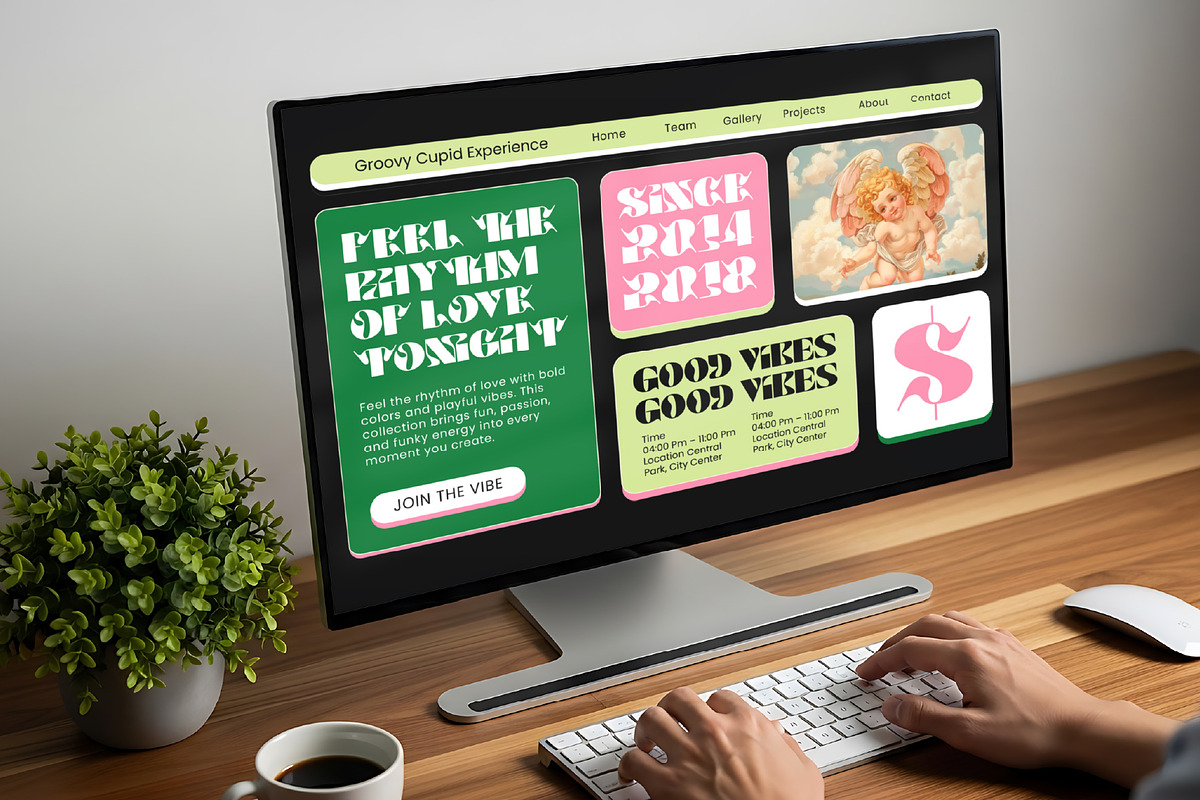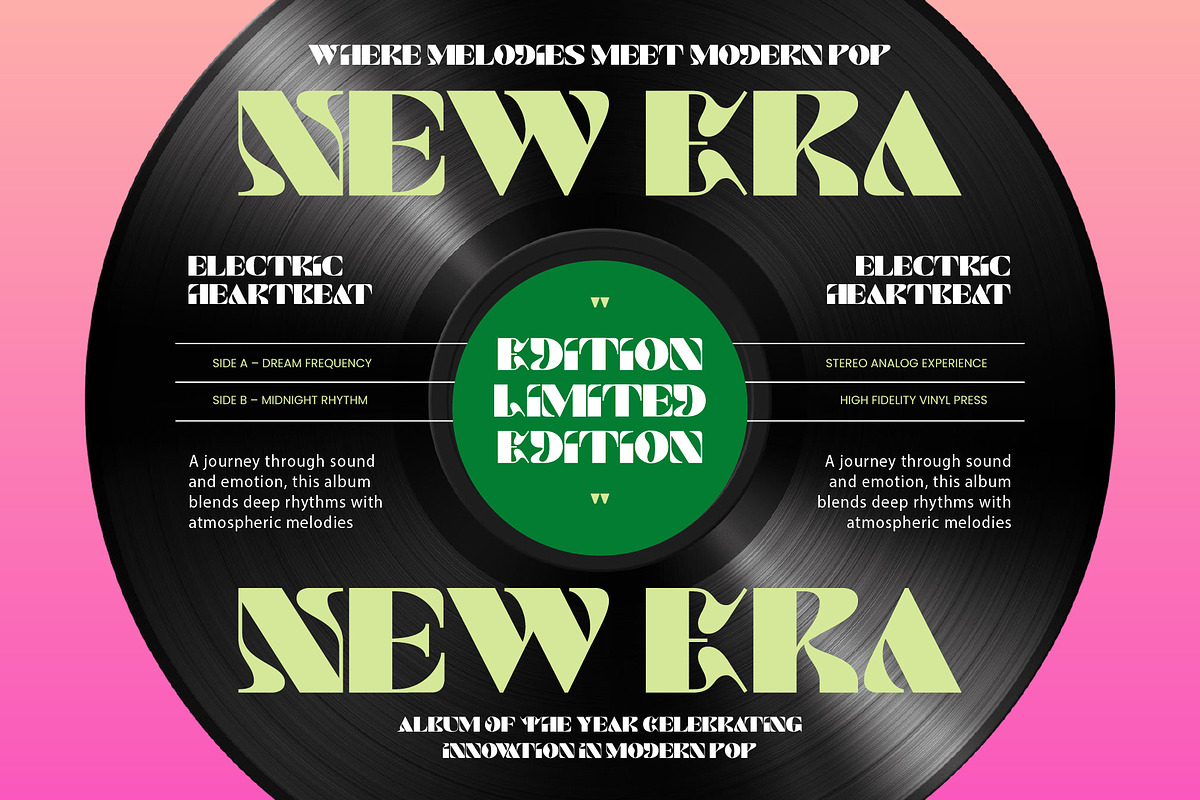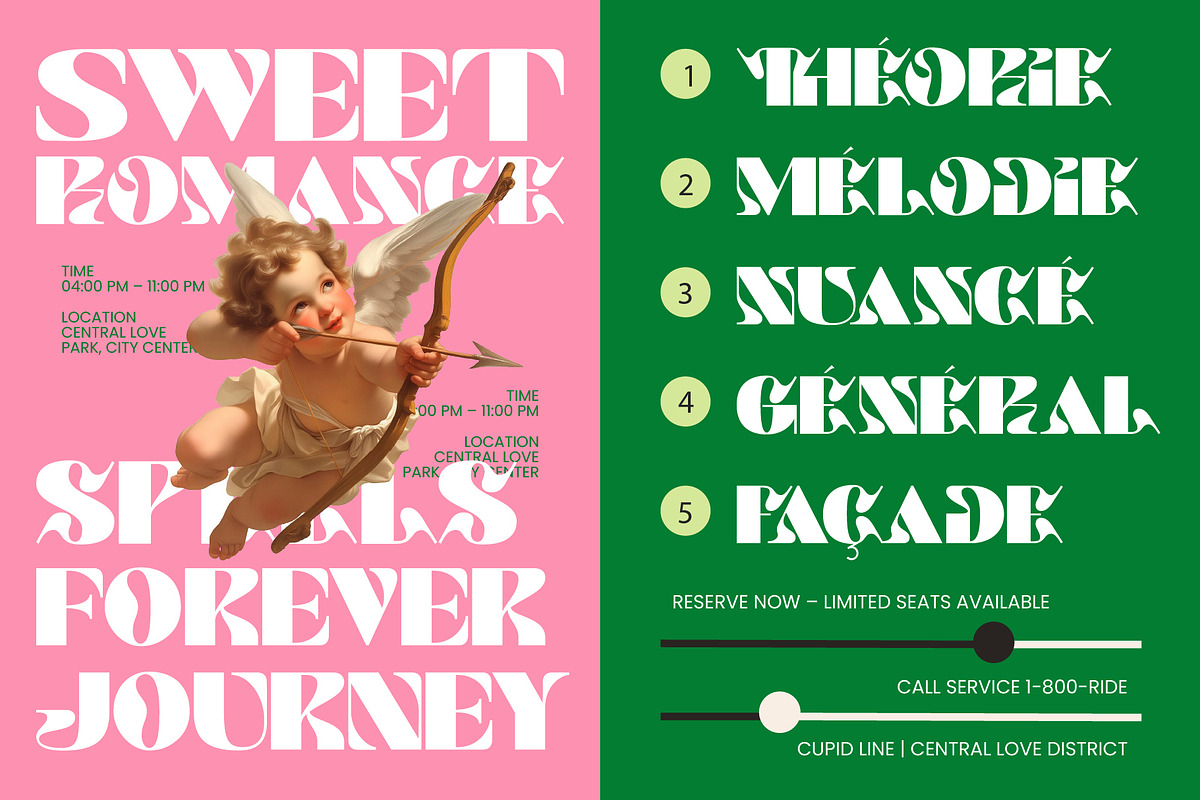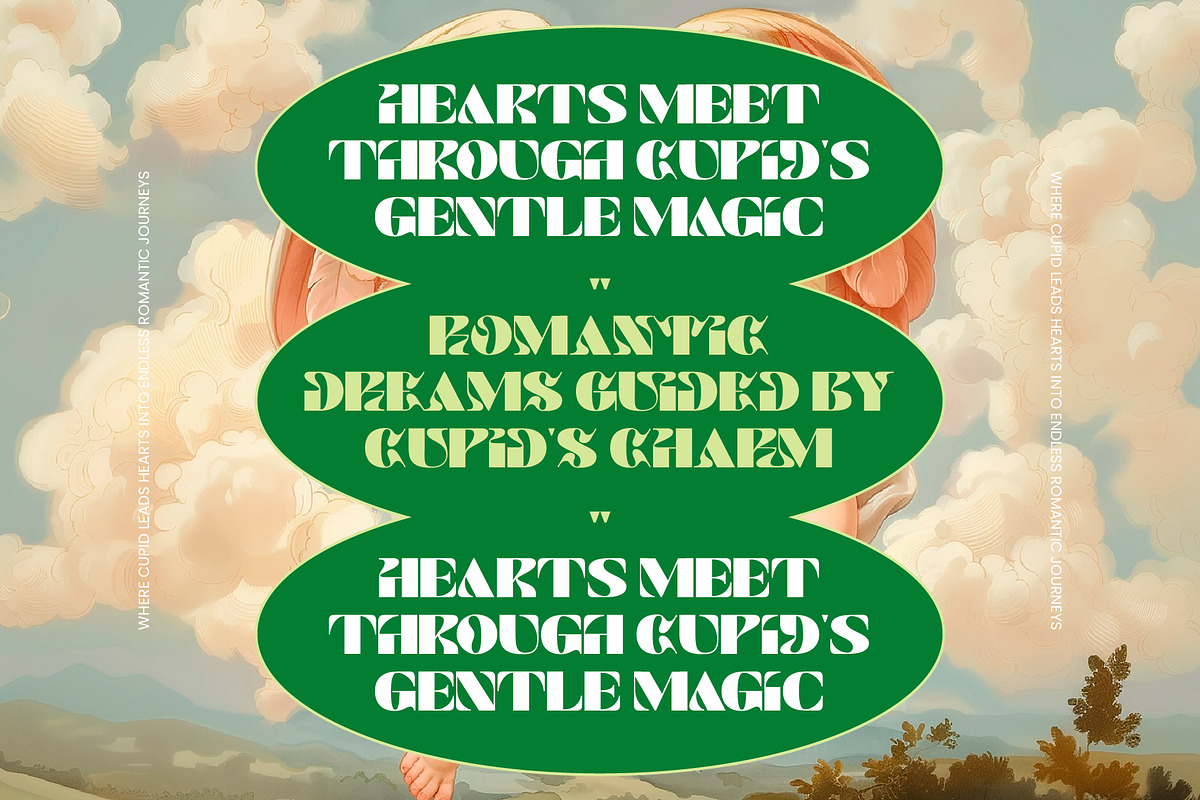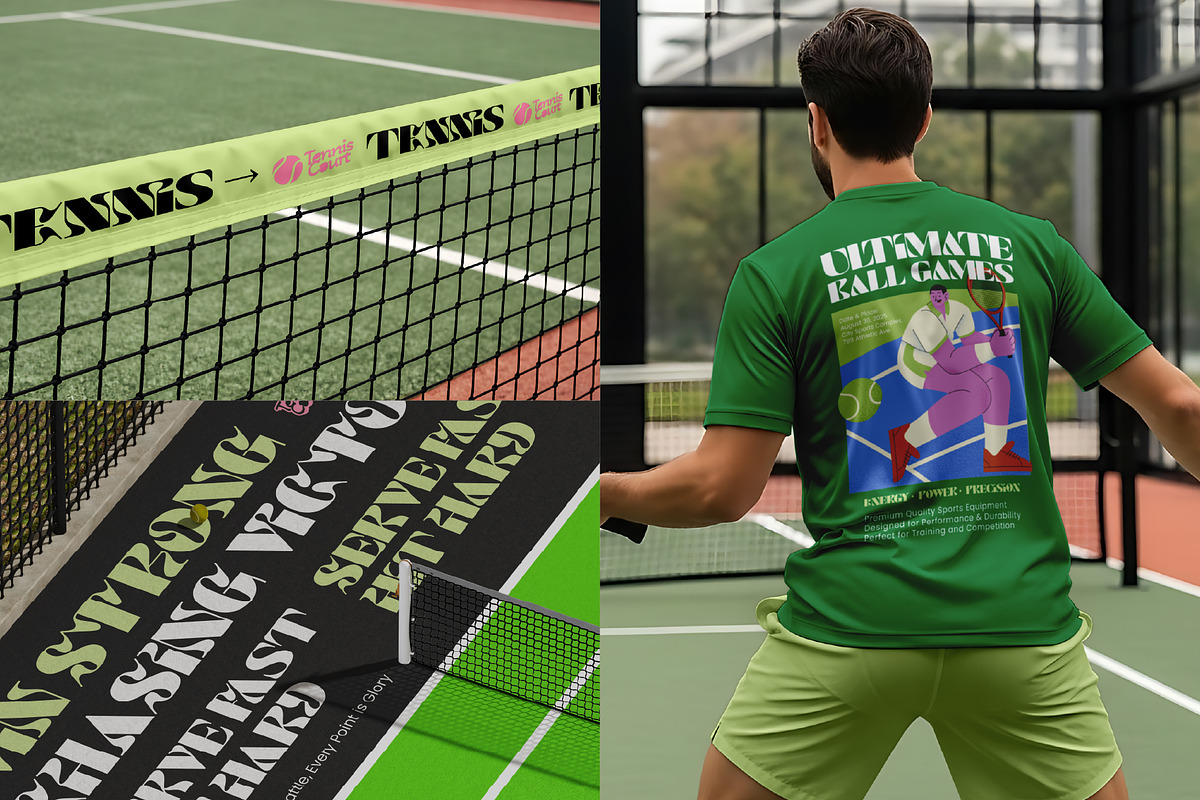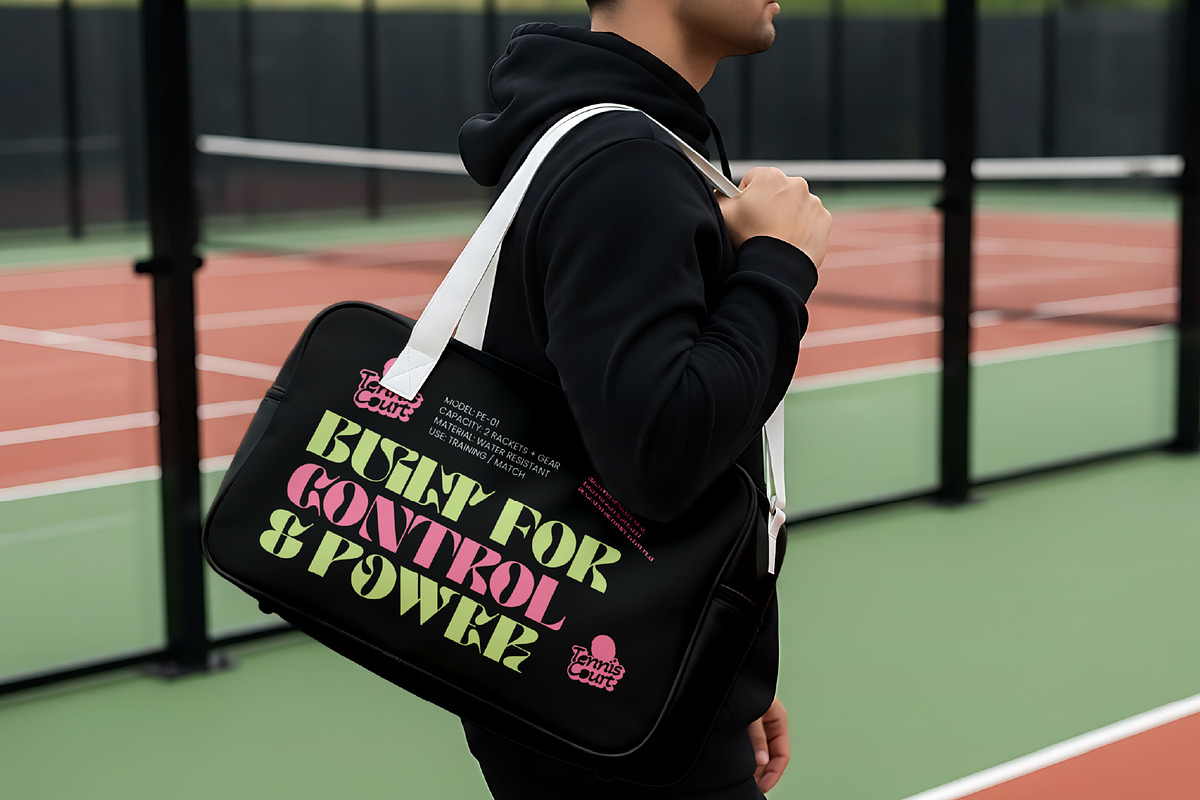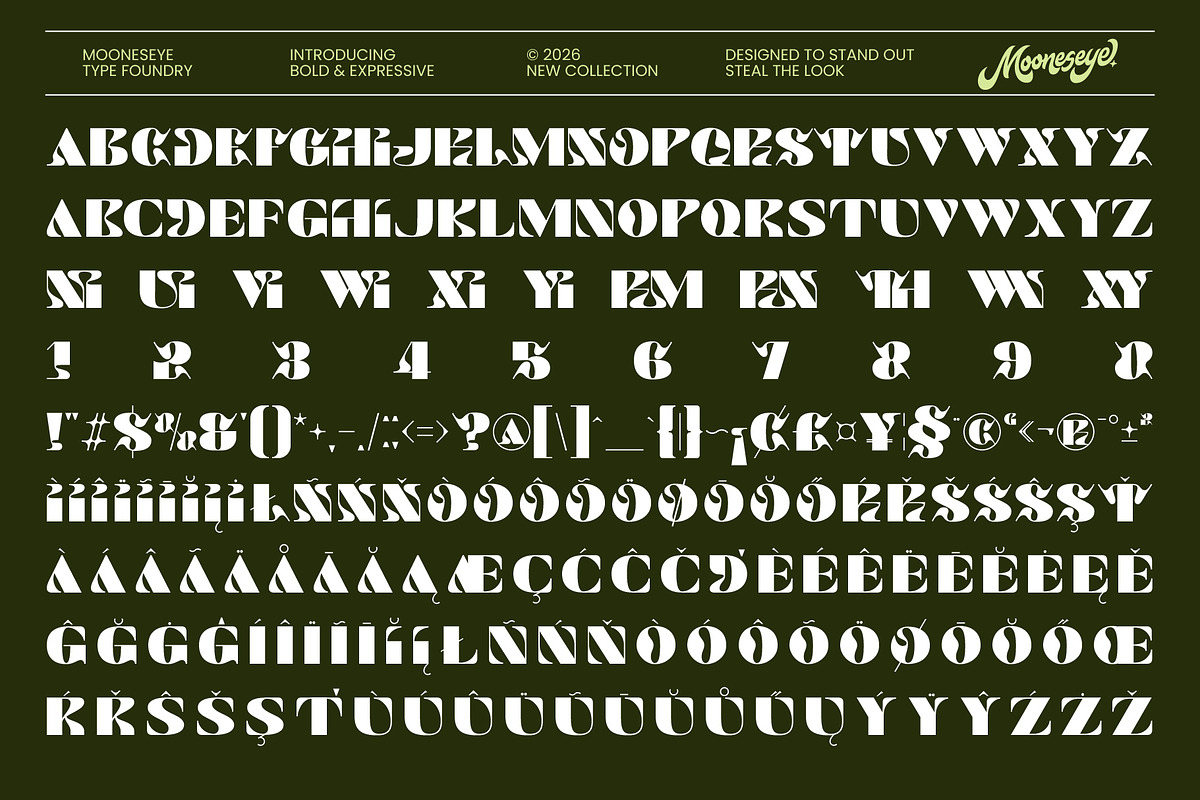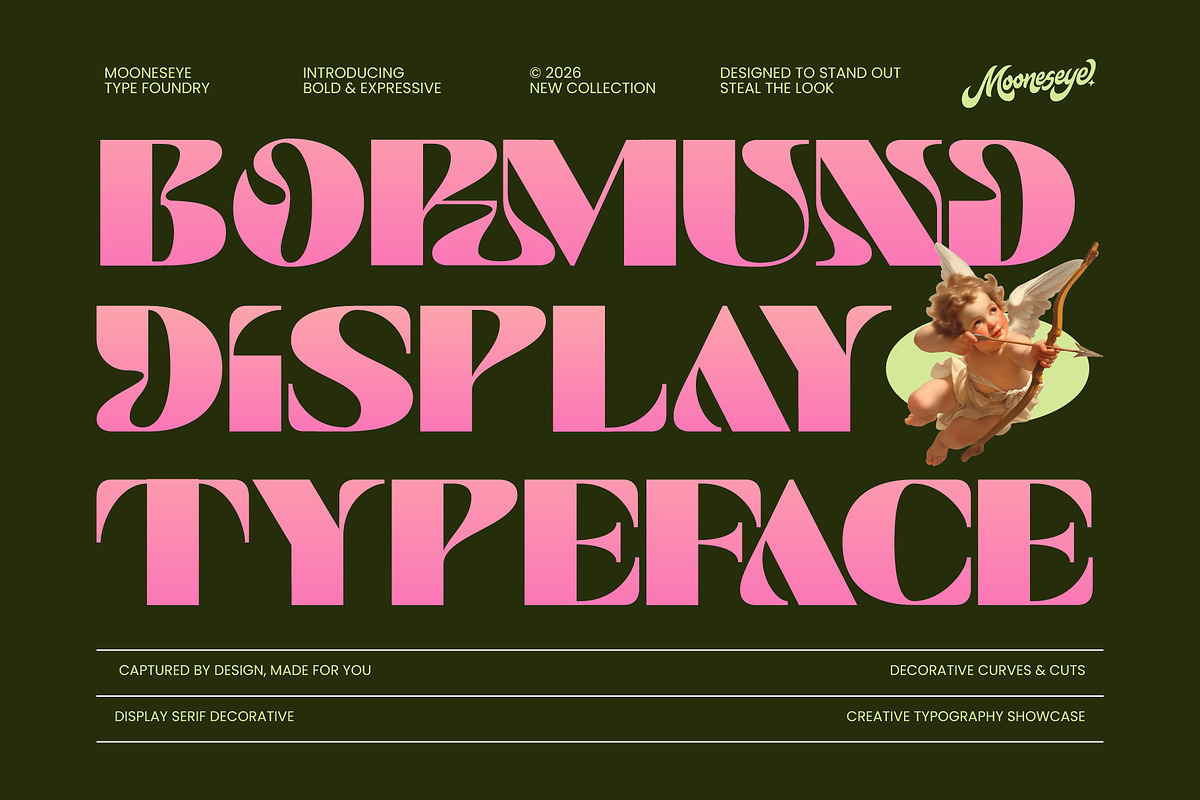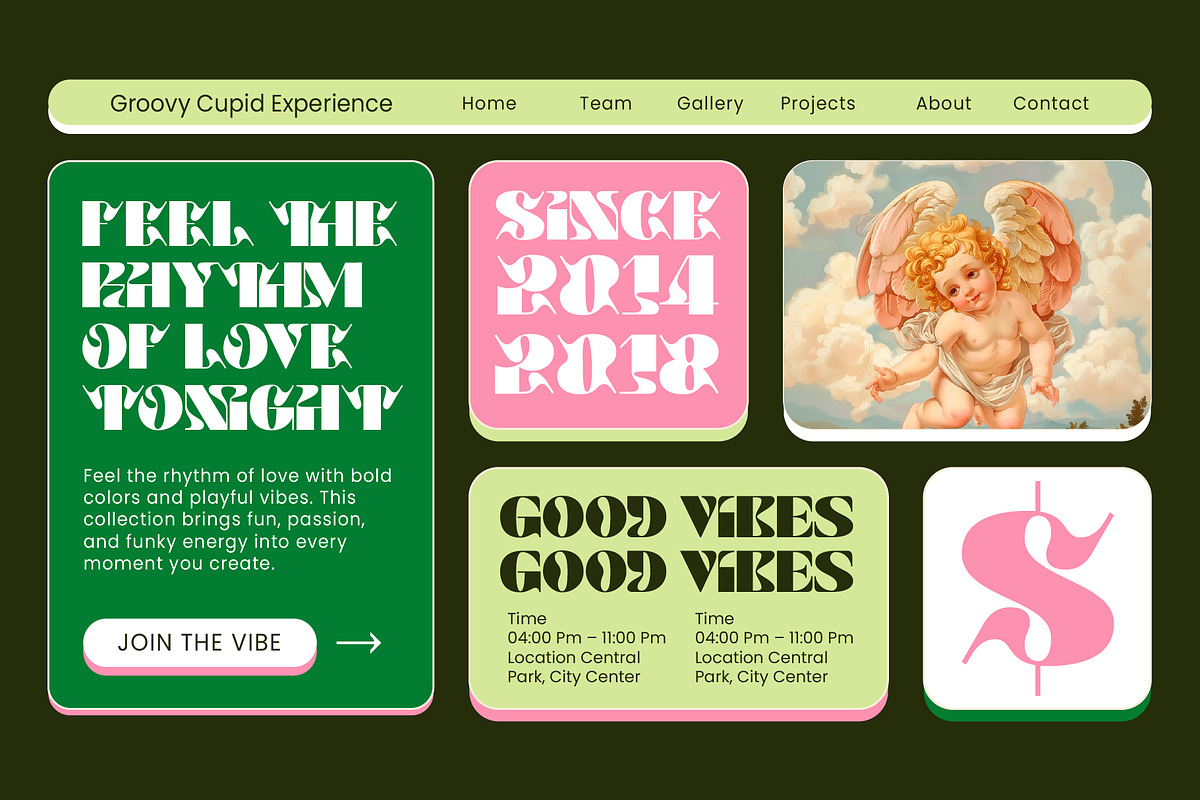
Bormund - Display Serif Font
Meet Bormund — a bold, expressive display serif that turns any design into a head-turning statement. Whether you're building a brand, designing a poster, or creating something that needs to stand out in a crowd, Bormund brings the energy.
Inspired by retro-groovy aesthetics with a modern twist, this font is built for designers who want their work to feel confident, expressive, and alive. Every letter has personality — from the dramatic curves to the sharp decorative cuts that make Bormund instantly recognizable.
Imagine your brand name on a poster that stops people mid-scroll. A music event flyer that feels loud even before you play a single note. A streetwear logo that looks like it was made by a studio with decades of experience. That's what Bormund gives you.